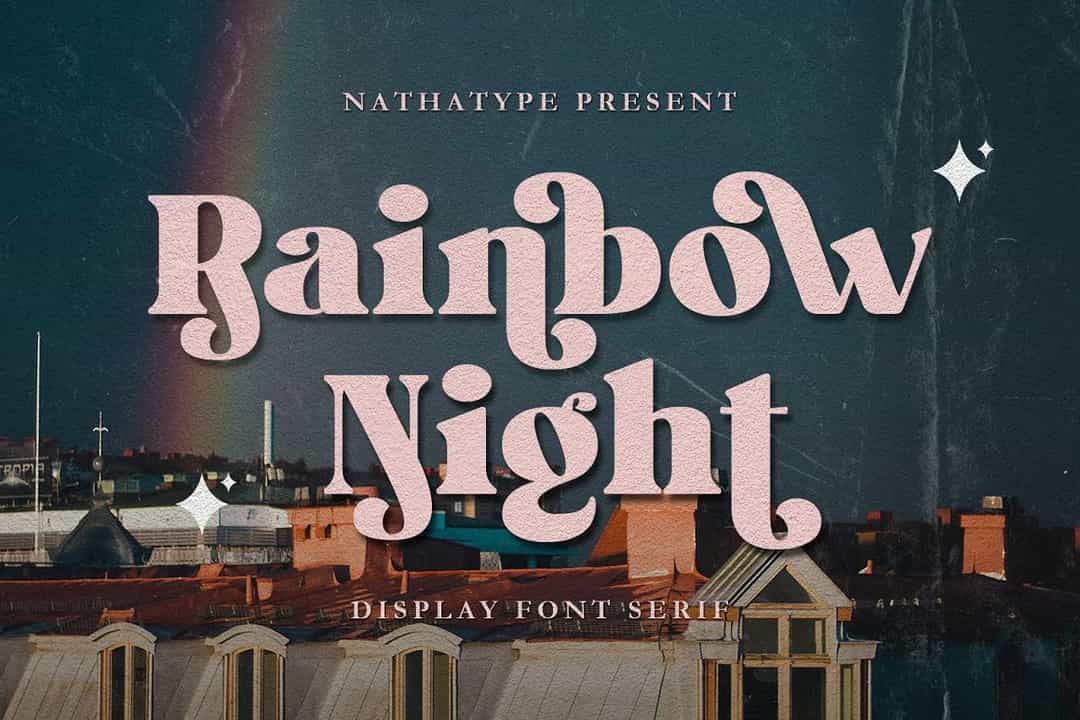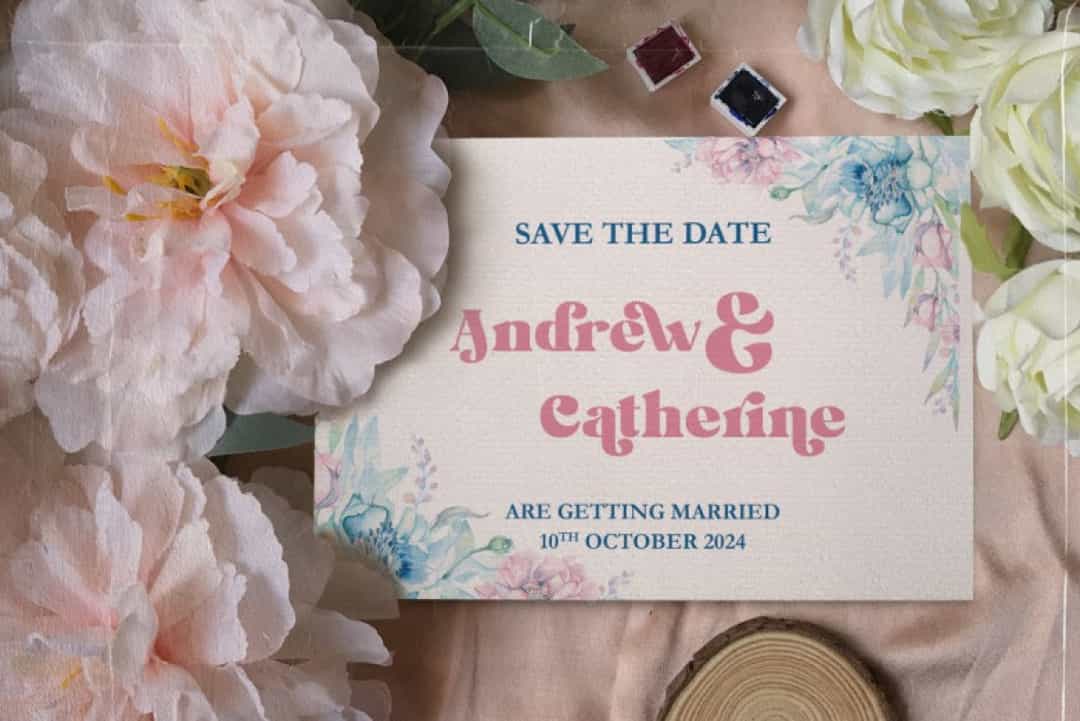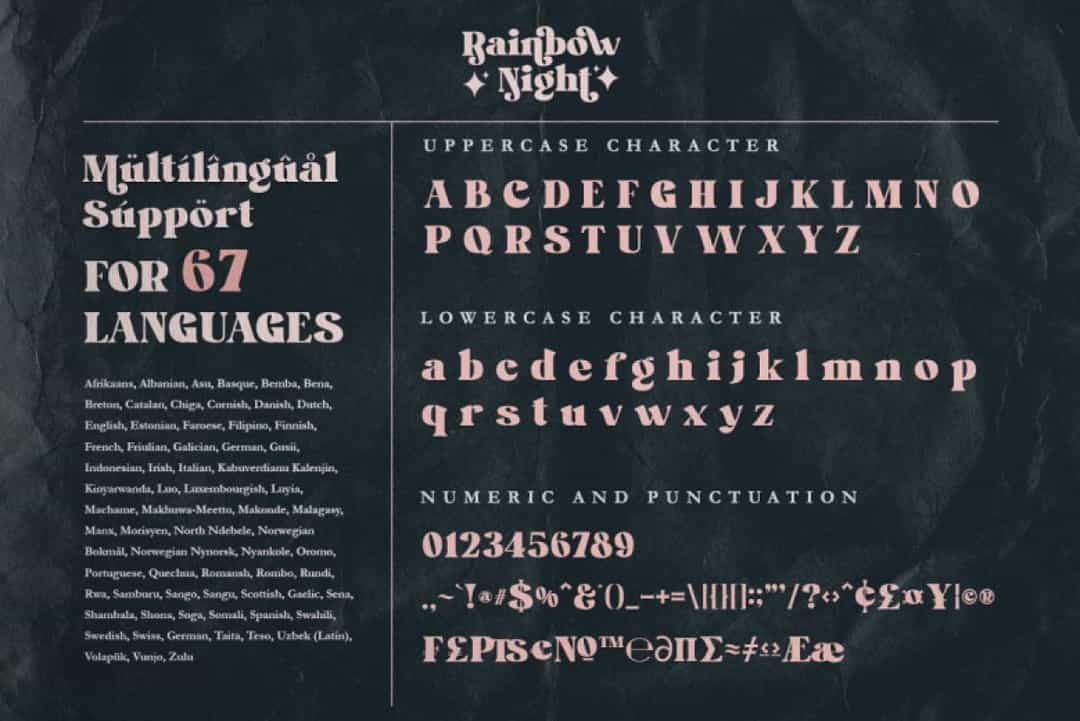
Rainbow Night is an elegant and striking show serif font designed to dazzle all who see it. A serif font features hooks or small scratches attached to letters’ edges for additional appeal, and in such fonts large quantities of serifs together make the letters appear heavier. Furthermore, this font was specifically created with dense lines and striking contrasts so as to produce strong visual displays.